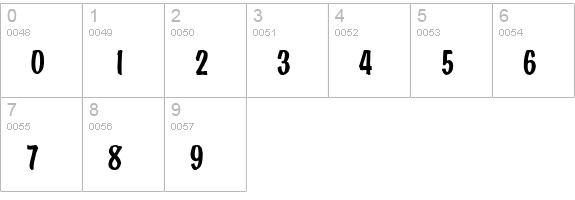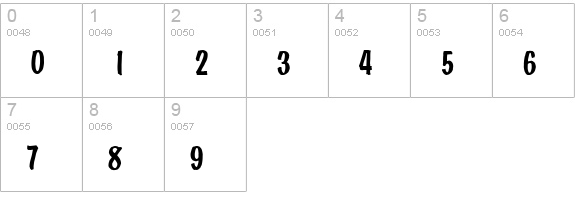
Bryce-Regular is the standard, neutral variant in the Bryce typeface family \xE2\x80\x94 well suited to general body text, paragraphs, and standard typographic work.
Bryce-Regular is a versatile and modern font that exudes sophistication and elegance. With its clean lines and balanced proportions, this typeface is perfect for a wide range of design projects, from branding to editorial design. The font features a timeless appeal that can easily adapt to various styles and themes. What sets Bryce-Regular apart is not just its aesthetic appeal, but also the fact that it is available for free download at FontsMarket.com. This means that designers and creatives can access this high-quality font without any cost, making it a valuable addition to their font library. Whether you're working on a website, a poster, a logo, or any other design project, Bryce-Regular offers a reliable and stylish option that will elevate your work. Embrace the elegance and versatility of this font, and let it bring your designs to life.